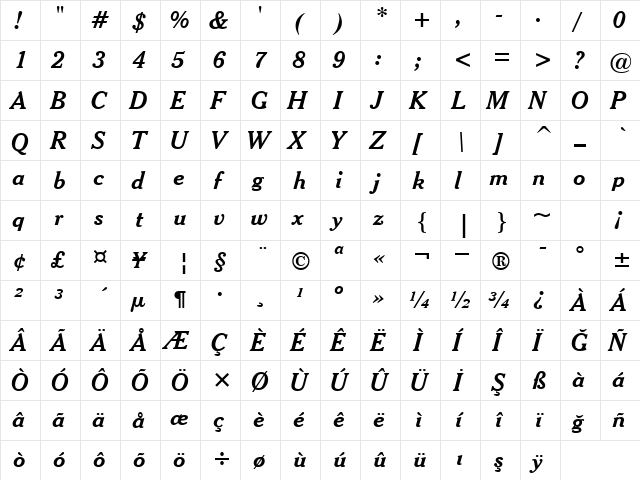
00789 Regular
Design Context for 00789 Typeface
00789 is a composed and adaptable typeface that performs quietly and consistently across a wide range of design contexts.